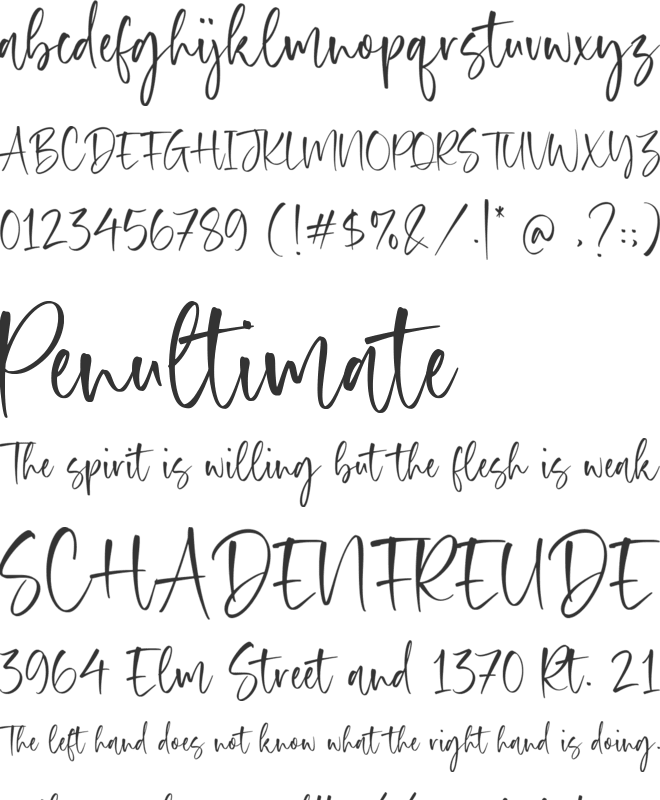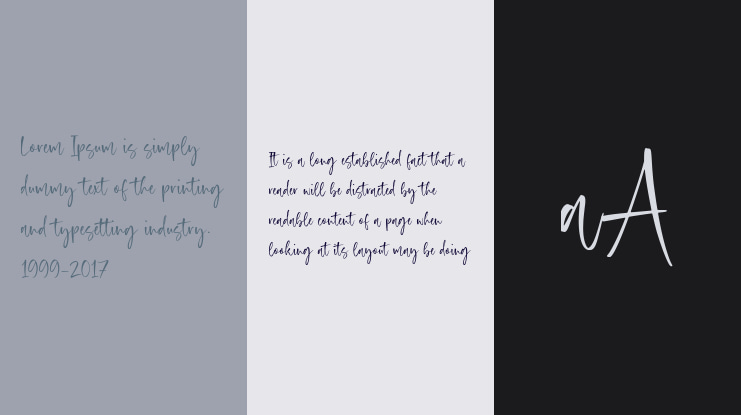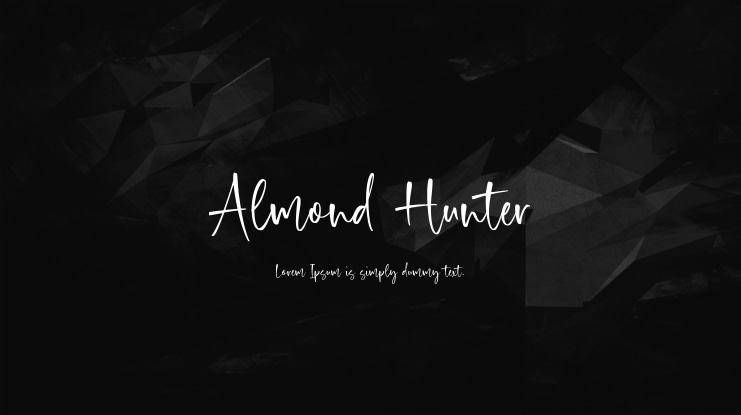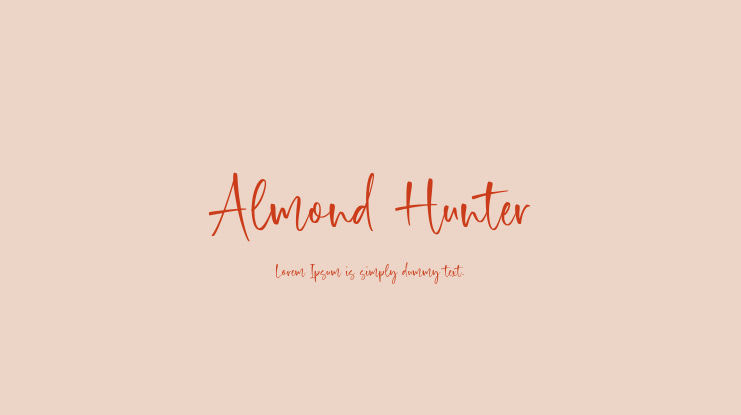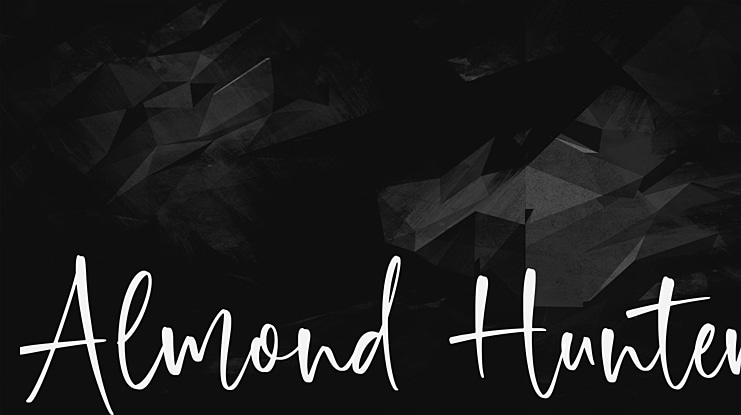
Almond Hunter Font
Introduced by Timur type
Almond Hunter is a Handwritten script font that is modern and fresh, and will bring a warm and inviting feel to your business. Take advantage of the fonts and experience the magic for yourself.
Almond Hunter is perfect for product packaging, branding project, megeenazine, social media, wedding, or just used to express words above the background.
Almond Hunter Font Features premium :
-Full Set of standard alphabet and punctuation
– Almond Hunter also multilingual support.